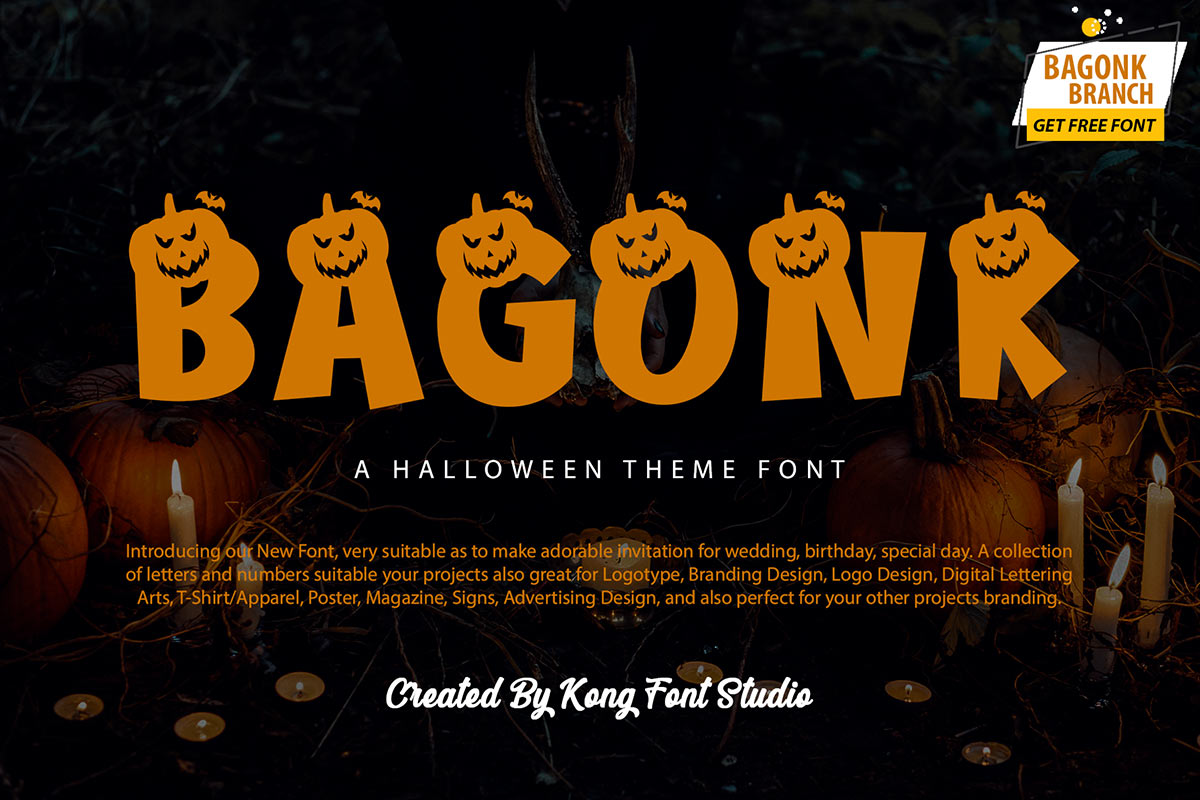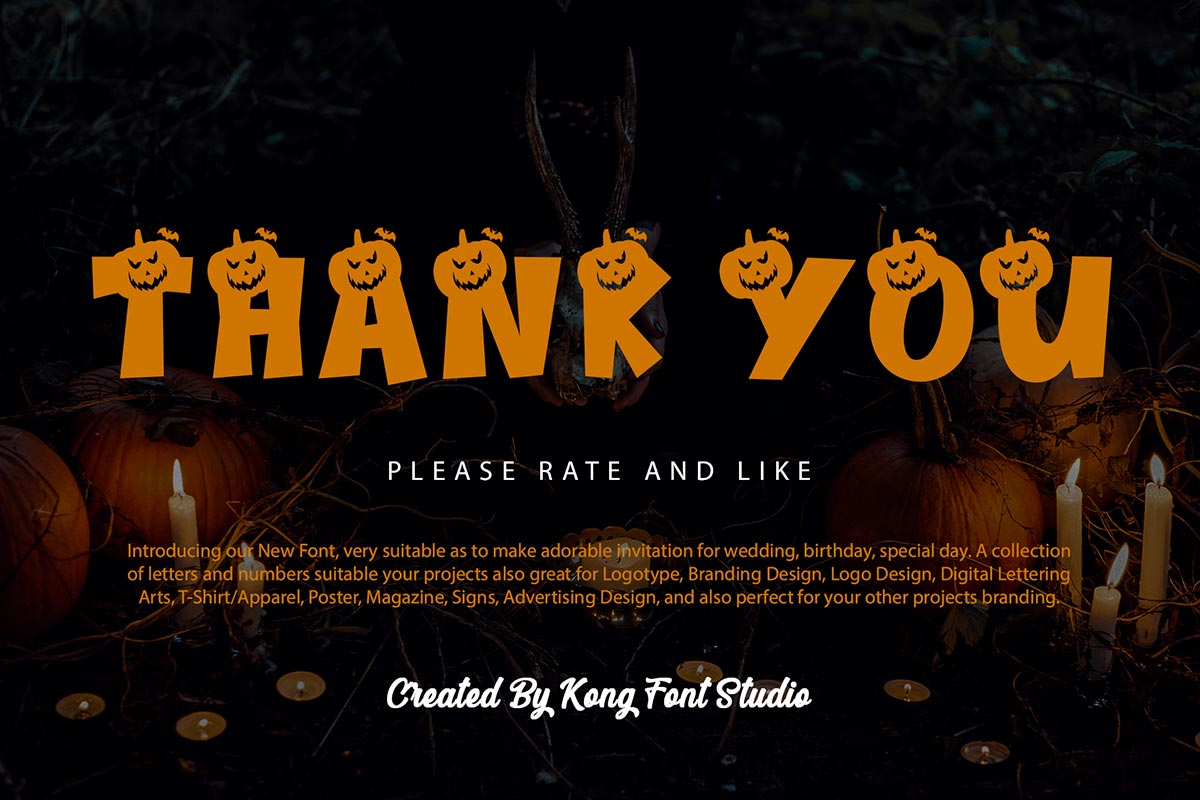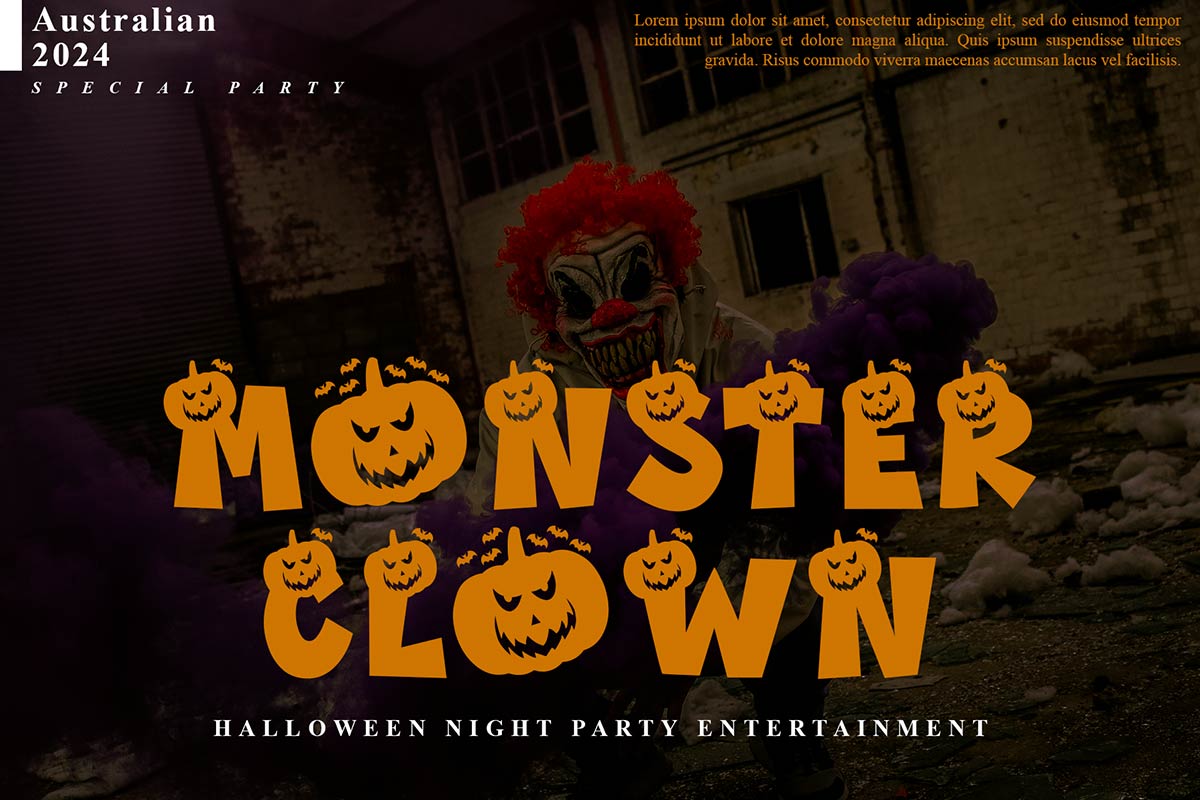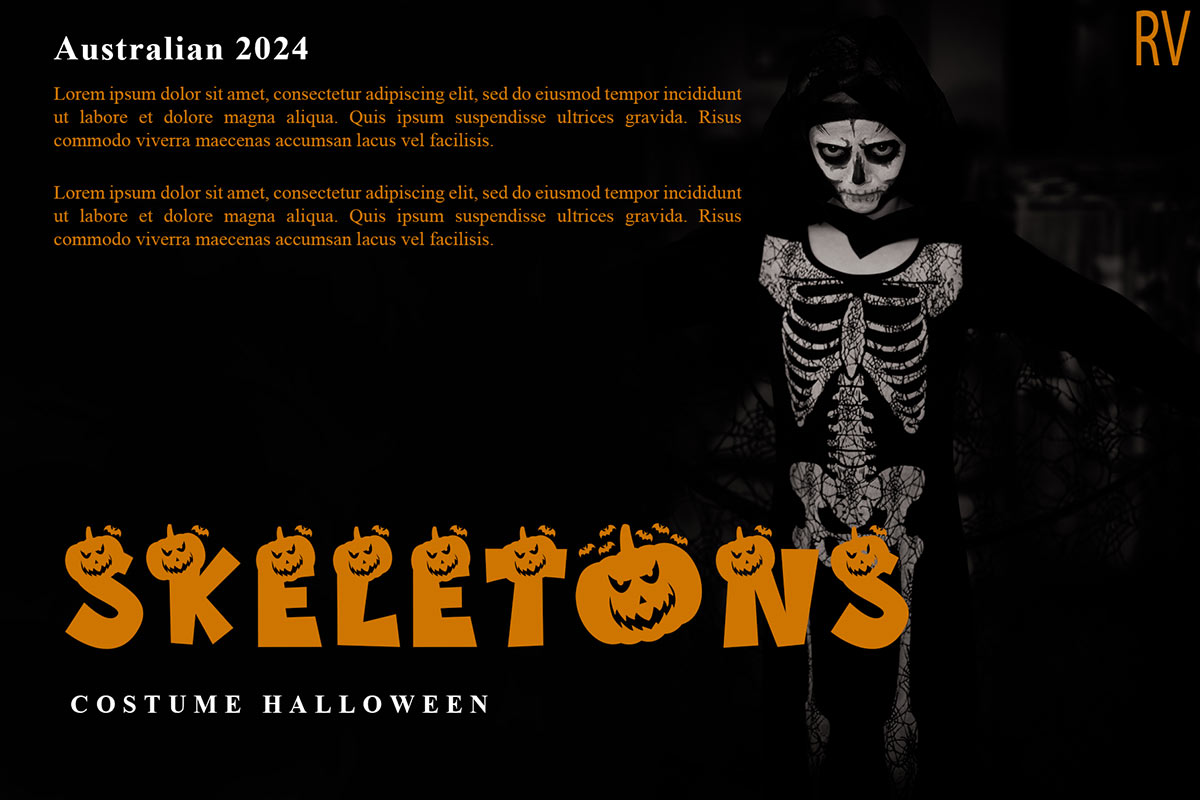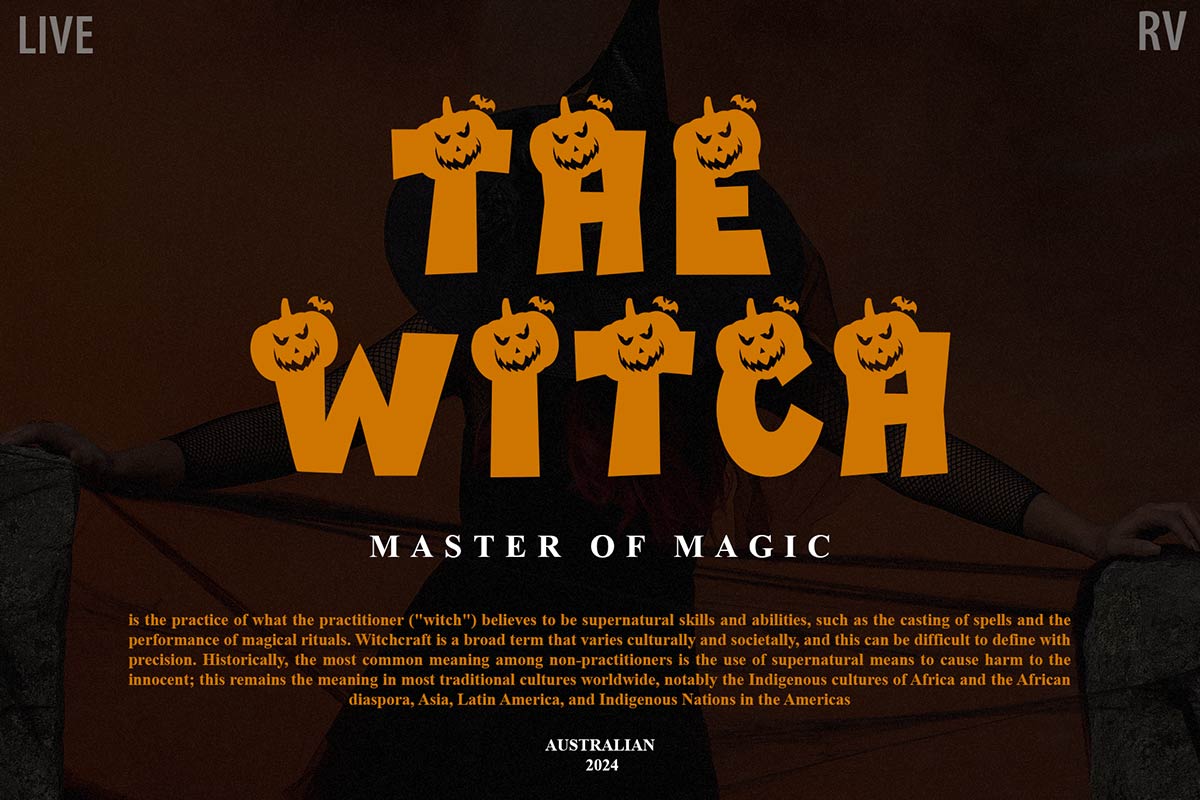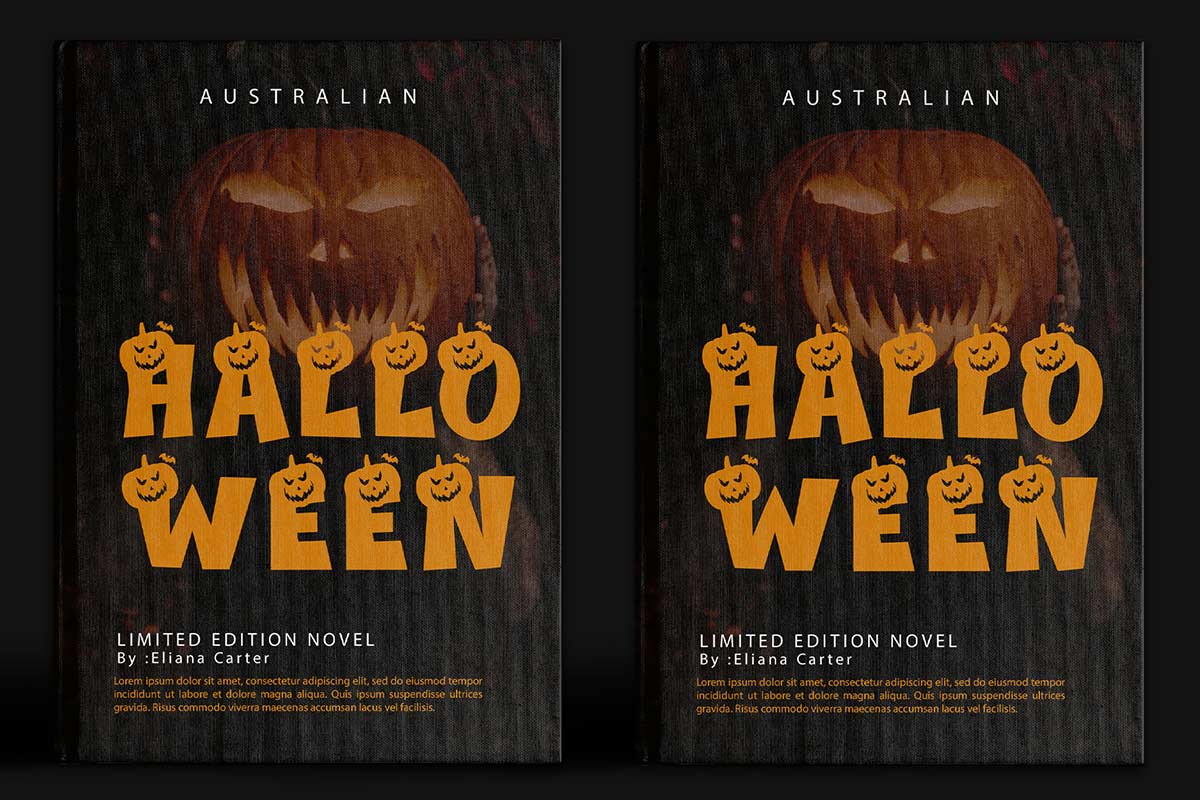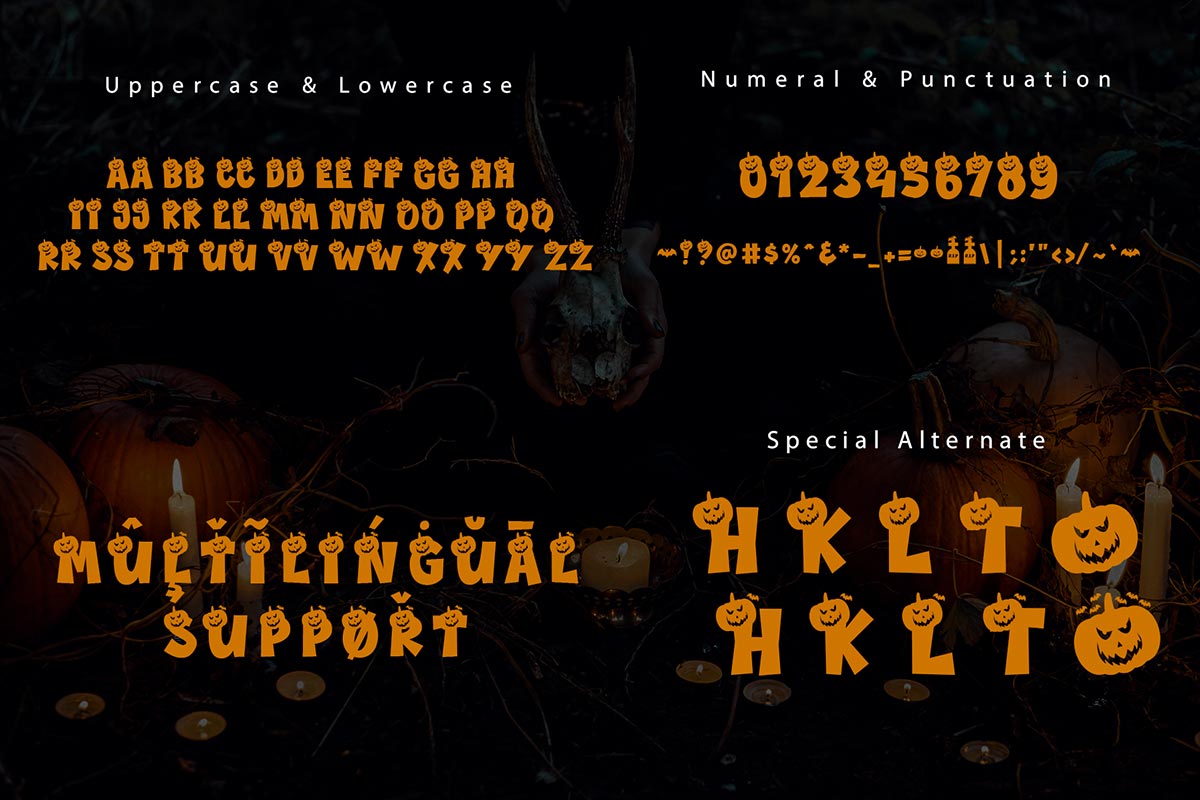
Bagonk Fancy Font Bagonk presents a very unique and an interesting look for a decorative typeface. It is a variation of Halloween decorative fonts. Not only shaped in the form of regular letters but the typeface itself is also equipped with the addition of a mysterious-looking pumpkin and a small bat on top of the letters. Speaking of readability, each of Bagonk's character glyphs has a wide and clean look, so they can clearly be distinguished from each other and is suitable for large-size printing. The Bagonk typeface is designed to jazz up your Halloween event with your family and friends. You can use this font on your Halloween invitations, as well as banners and posters that you will display at your party. You can also use Bagonk on other Halloween supplies, such as; t-shirts, mystery story books, and party favors. Companies that produce items with a Halloween theme can also use this font on their products, such as; on children's toys, school bags, hats, and more. Bagonk fonts can also be used as decorations in places frequented by people such as; shopping centers, restaurants, hotels, and many other places before and during Halloween.Our collection of display fonts and compatible to use as Figma fonts, Canva fonts, Freepik Fonts, and Adobe Fonts. They also work as Windows Fonts, and Apple Fonts. For your social media needs, you can use and install fonts in our collection of display and decorative typefaces to use as Instagram Fonts, Facebook Fonts, and Twitter Fonts.